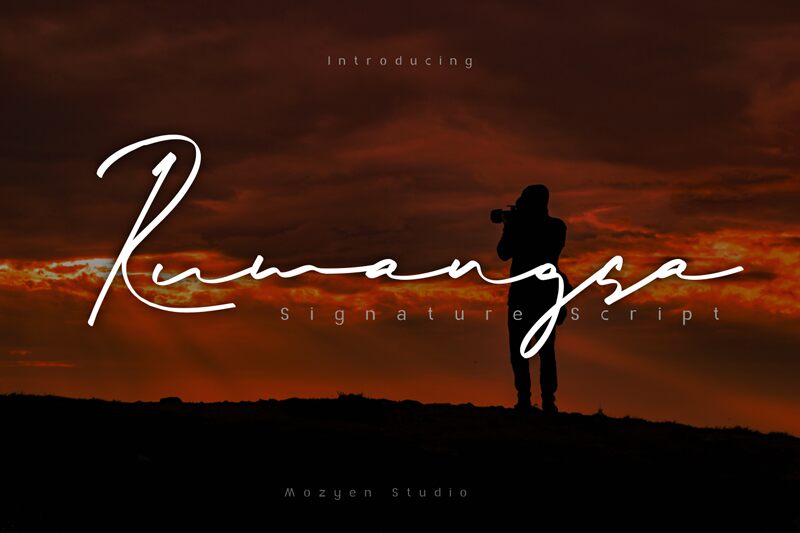
Rumangsa Signature, a delicate and exquisite handwritten font created by Mozyen Studio. With its light weight, this font brings an air of elegance and sophistication to any project.
Suitable for wedding invitations, greeting cards, and feminine branding, Rumangsa Signature adds a personal touch with its unique script style. Its gracefully flowing curves evoke a sense of warmth and intimacy, making it perfect for creating romantic or heartfelt designs.
Let Rumangsa Signature elevate your creations with its charming and refined appeal.